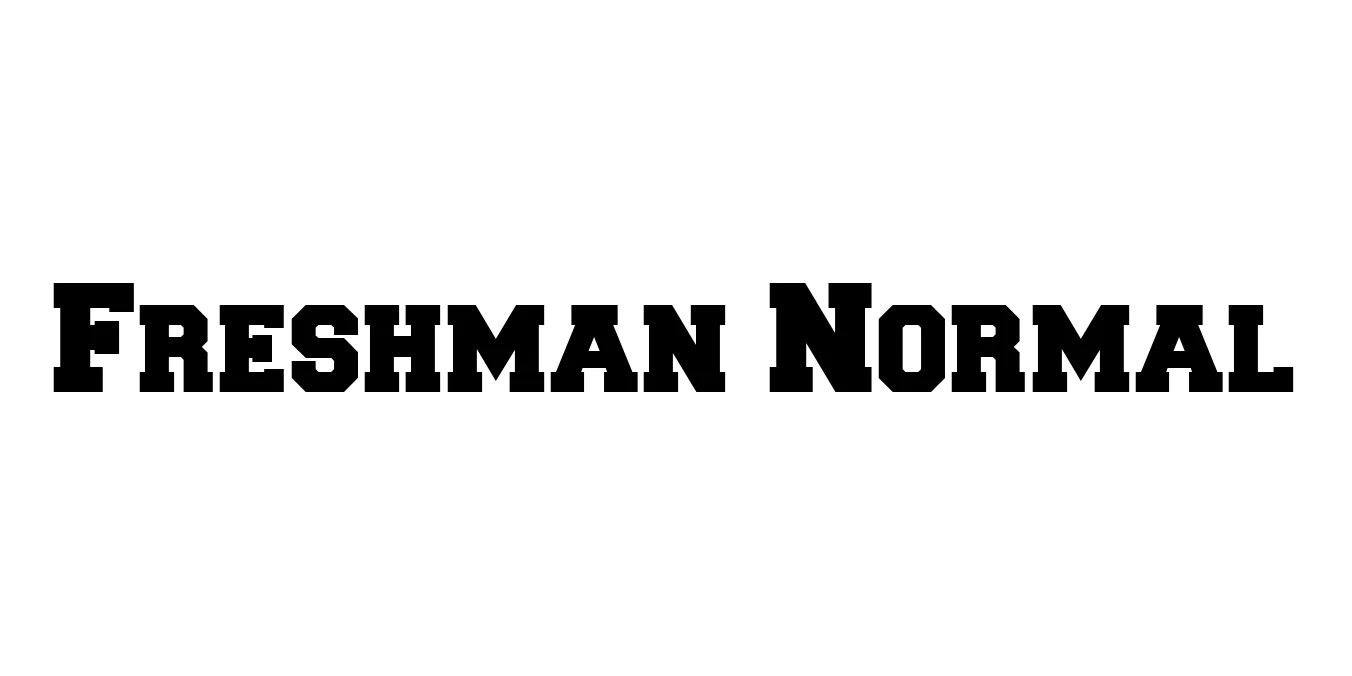
Freshman Normal
Designed by William Boyd
| Font Name | Freshman |
| Category | Slab Serif / Athletic |
| Designer | William Boyd |
Freshman Normal is a quintessential collegiate-style typeface that embodies the spirit of American varsity sports and academic excellence. Characterized by its heavy, geometric slab serifs and bold, blocky construction, it provides an instant sense of authority and tradition. This font has become a staple in graphic design for projects that require a classic athletic aesthetic, reminiscent of vintage university sweaters and high school sports banners.
The design of Freshman focuses on high legibility and impact, making it an ideal choice for large-scale displays and jersey numbering. Its robust letterforms are built on a structured grid, ensuring consistent spacing and a professional look across various media. Whether used for branding a local sports team or creating promotional materials for collegiate events, this font remains a go-to resource for designers seeking a timeless, competitive look.
Freshman Normal Best Uses
Perfect for team logos, mascot identities, and athletic department graphics.
Ideal for varsity jackets, t-shirts, and jersey numbers.
High-impact headings for sports-related posts and event announcements.
Great for university-themed souvenirs and campus apparel.